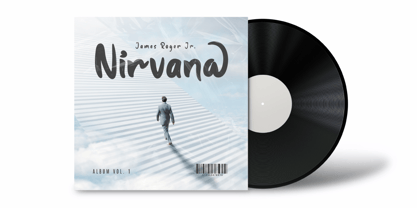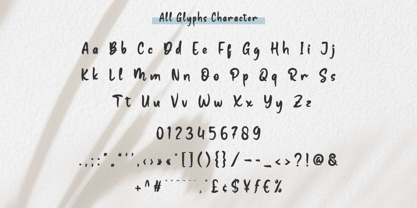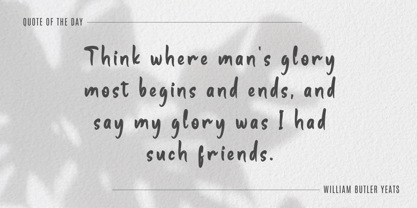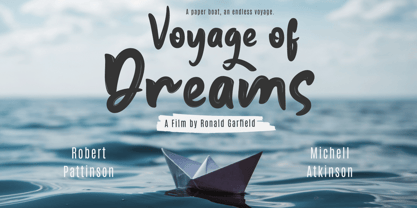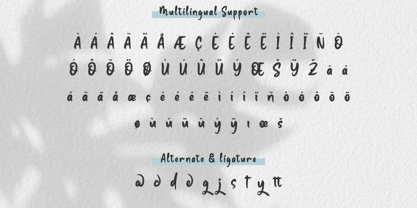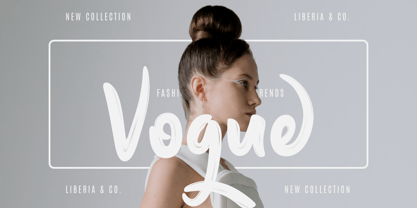
Eca Hattea
by Product Type
The Eca Hattea Font Family was designed by Lita Faolina and published by Product Type. Eca Hattea contains 1 styles.
Eca Hattea is a brush handwritten font that captures the spirit of the sea. Its bold, dynamic characters are perfect for designs that require a touch of excitement and energy. Whether you’re creating a logo for a nautical brand or a headline for a sailing blog, Eca Hattea adds a touch of the sea that is sure to captivate your audience.